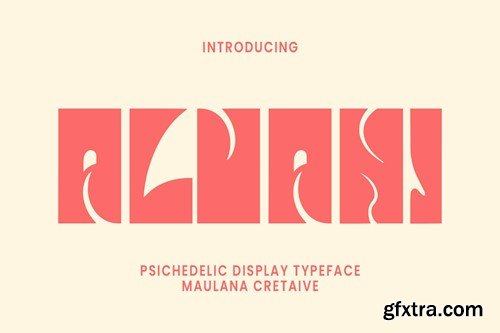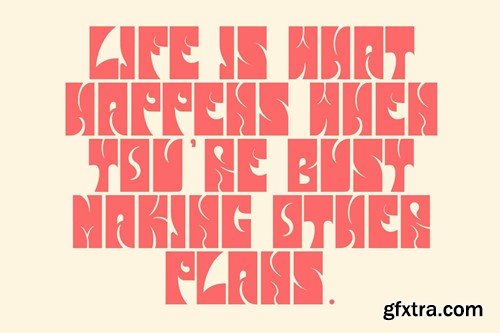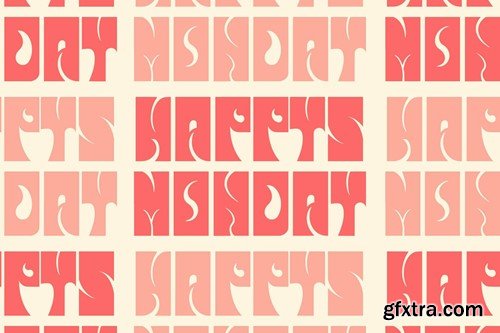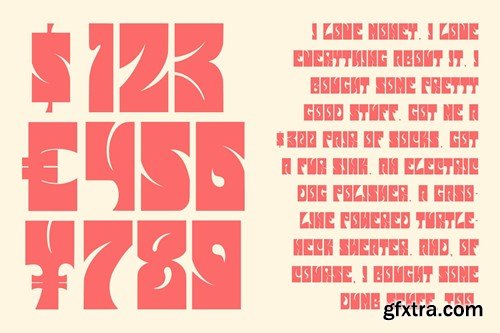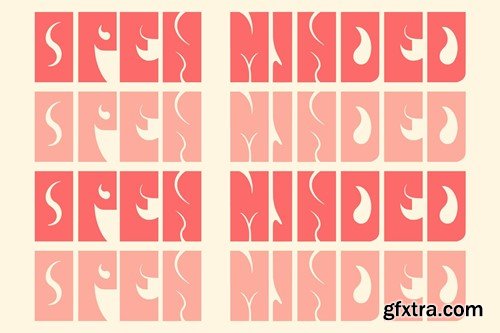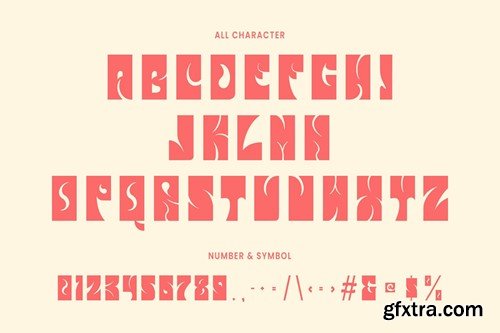
Alvani Psichedelic Display Typeface
Alvani psichedelic display typeface. Bold stroke, fun character with a bit of ligatures. To give you an extra creative work. Alvani psichedelic display typeface support multilingual more than 100+ language. This font is good for logo design, Social media, Movie Titles, Books Titles, a short text even a long text letter and good for your secondary text font with script or serif. Make a stunning work with Alvani psichedelic display typeface. What you get: Cheers, Maulana Creative